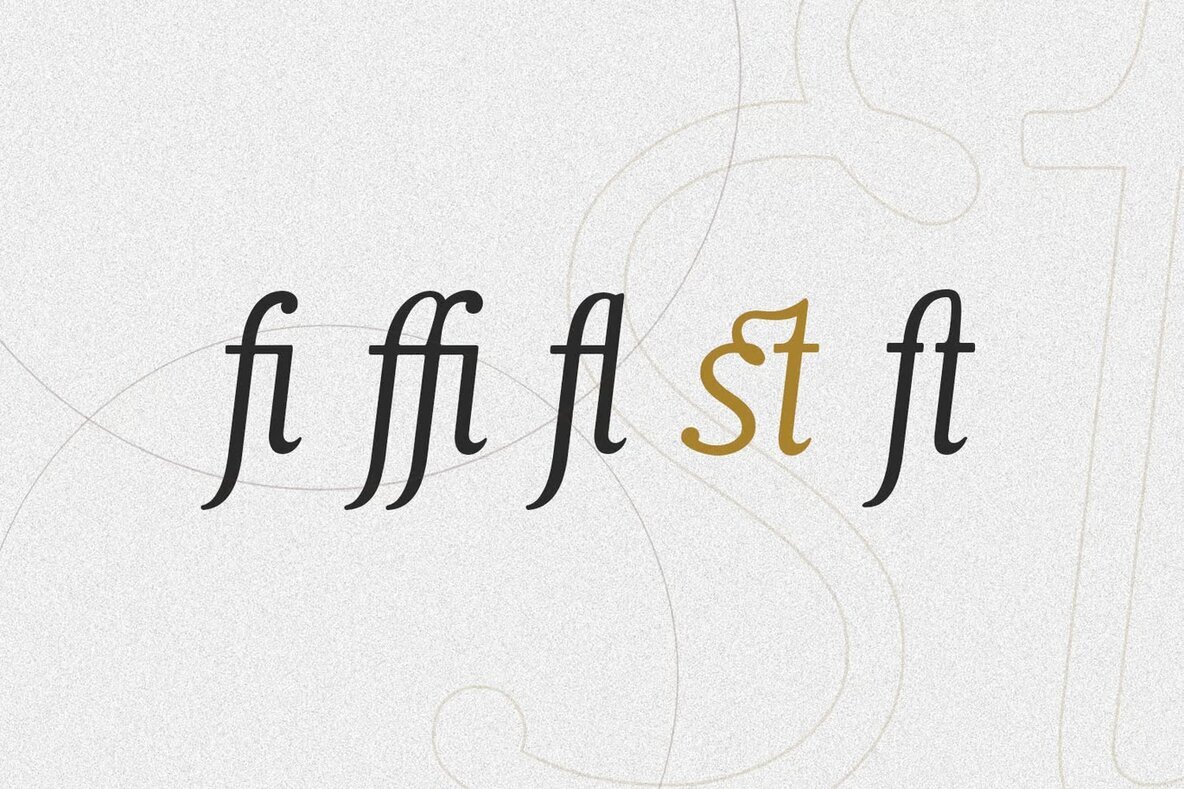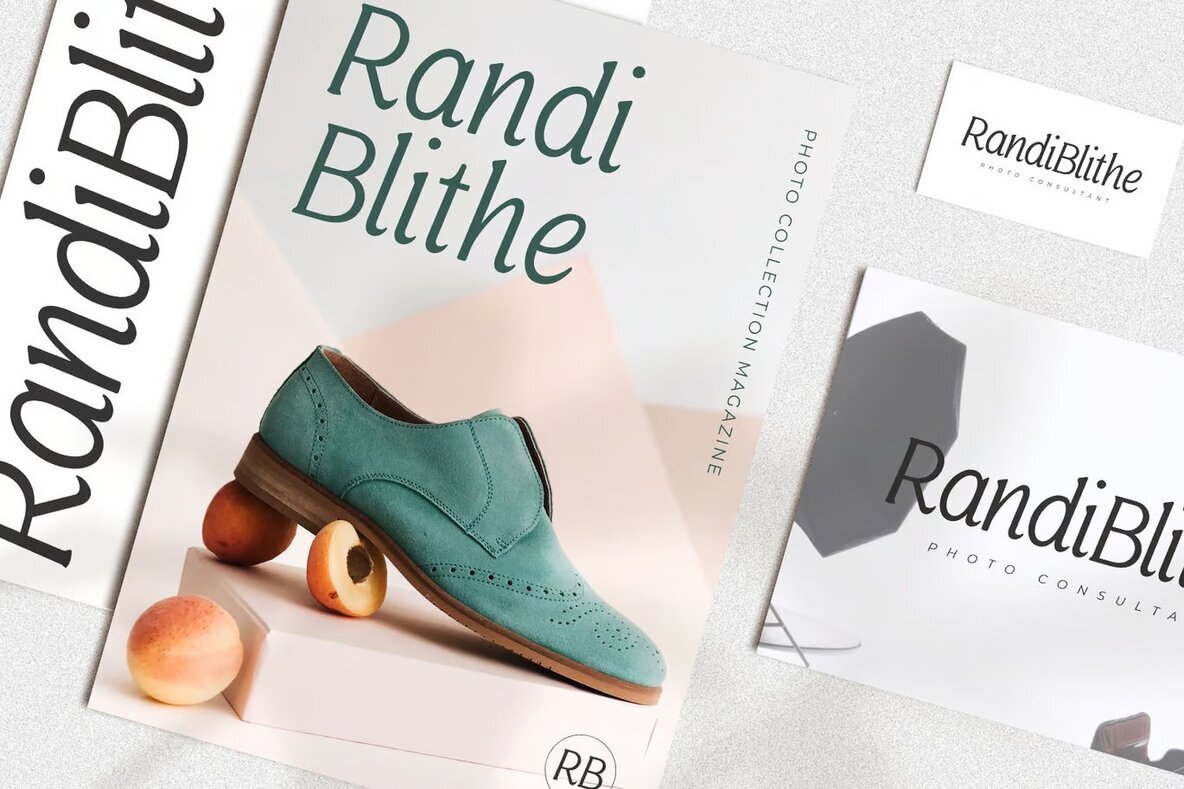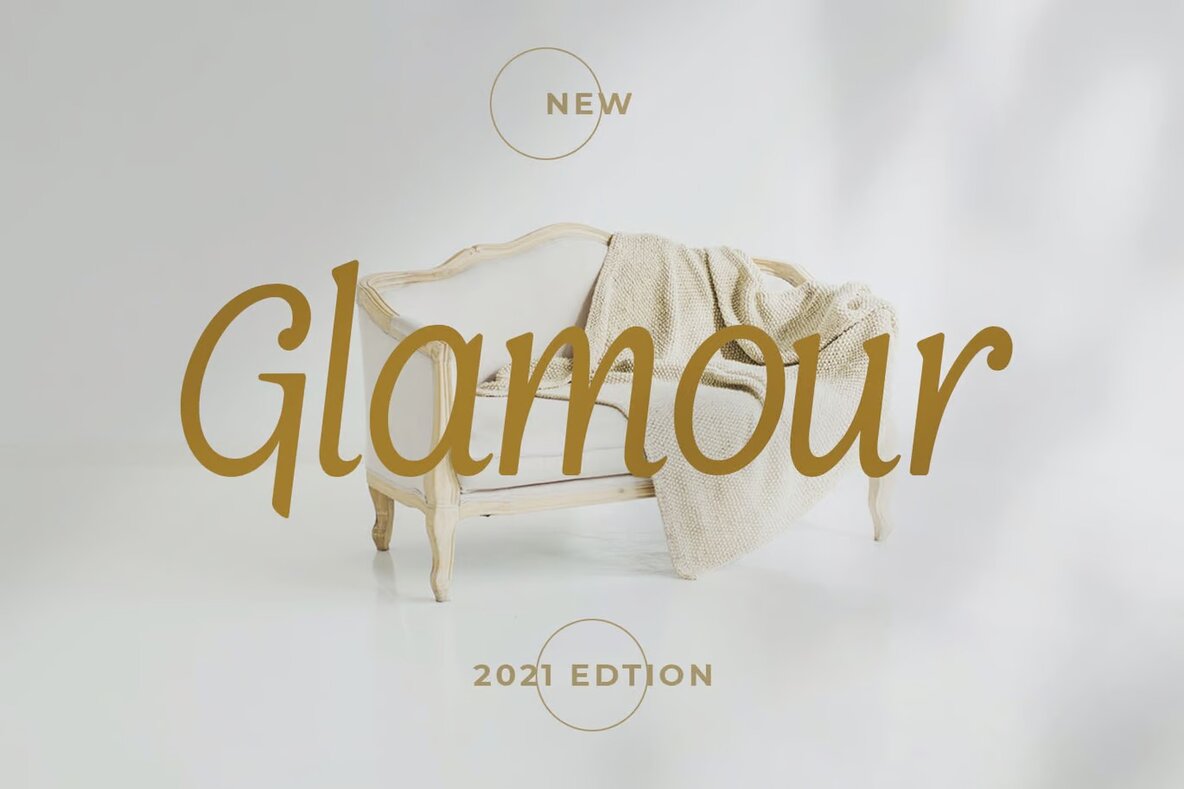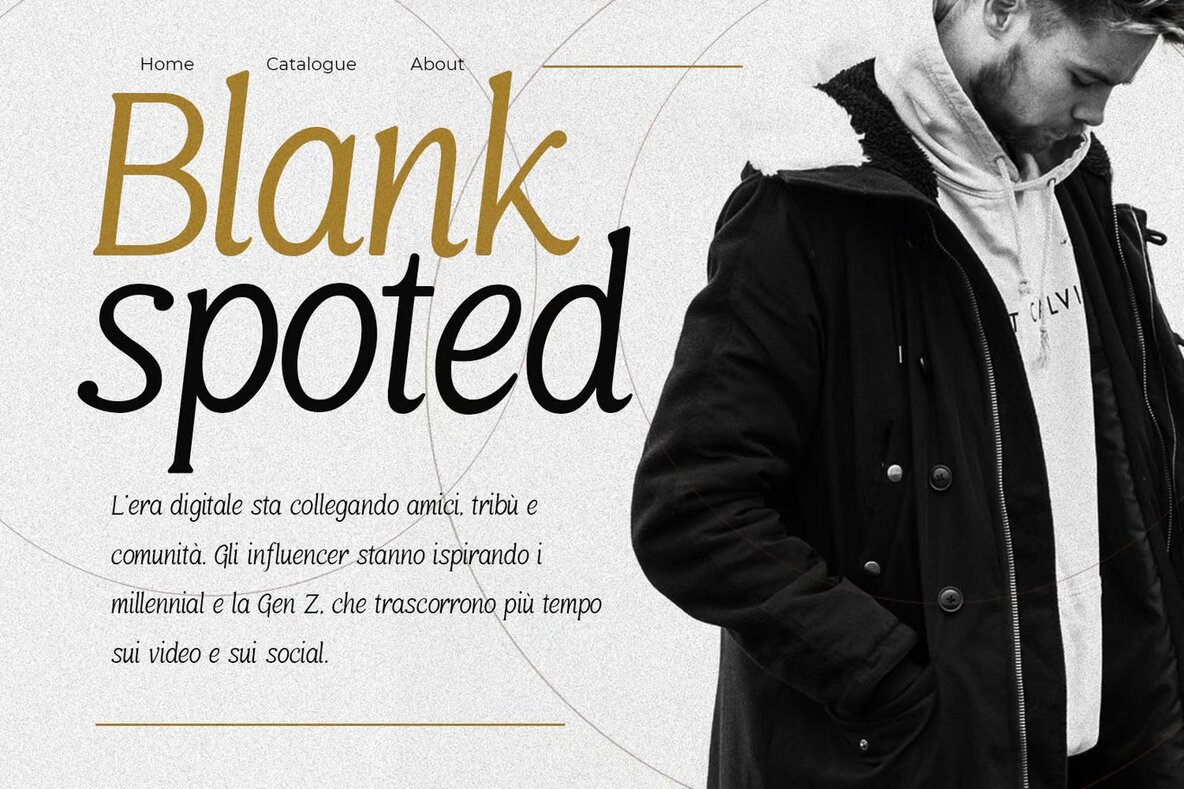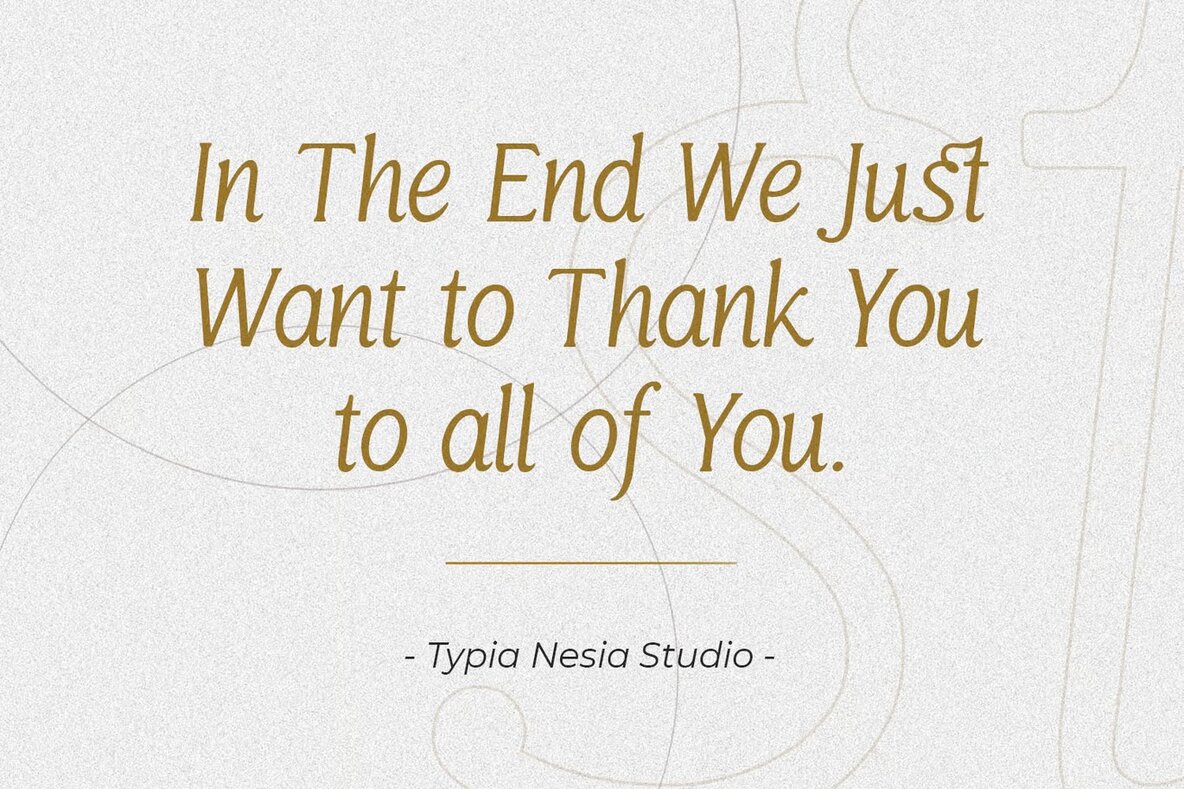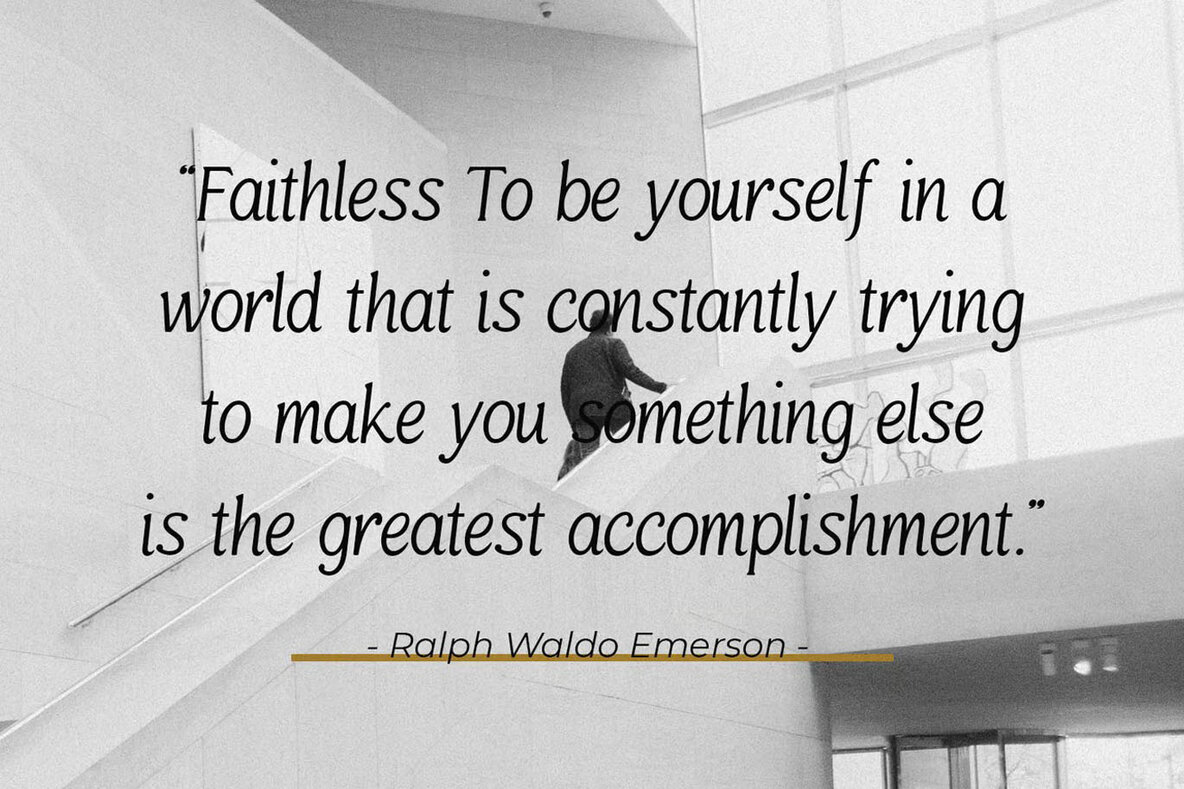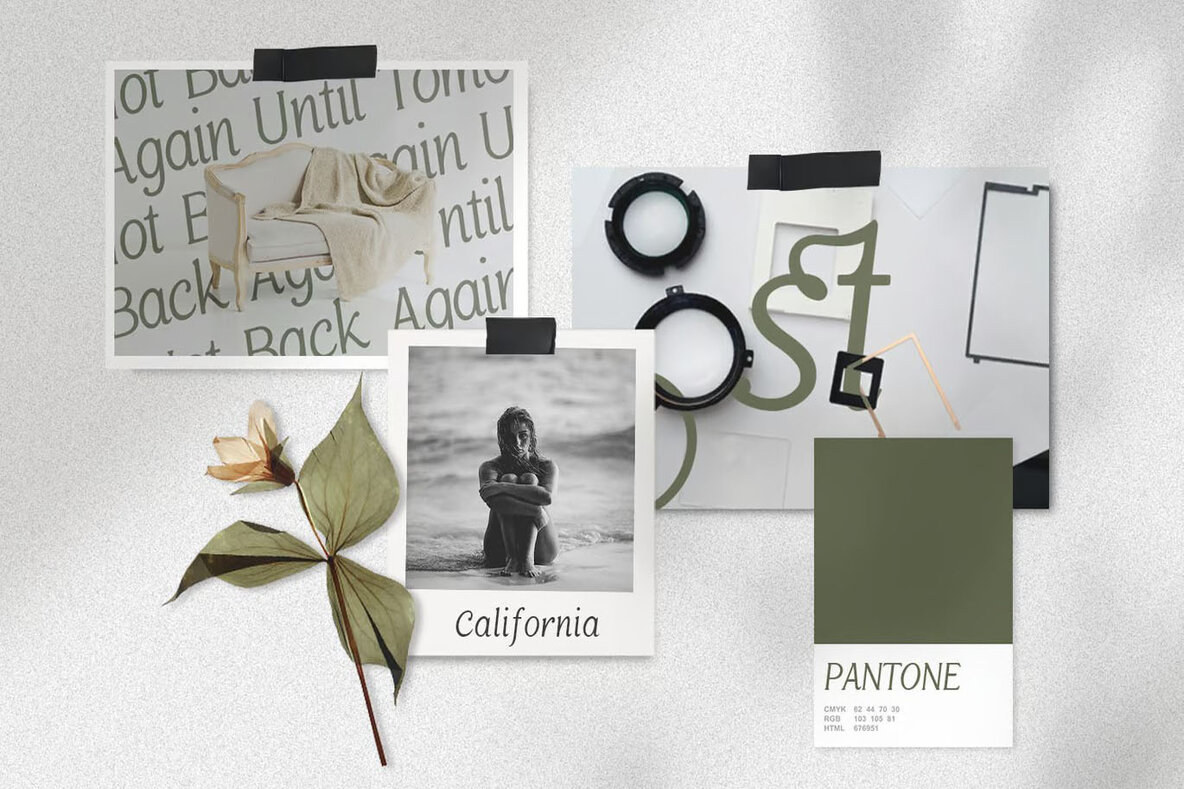
Quatest Font
Quatest Light
Quatest is an elegant, italic serif font that beautifully complements various design projects. Ideal for luxury logos, refined branding, and sophisticated editorial layouts, this font adds a touch of class to each creation. It's perfectly suited for women's magazines, cosmetic brand identities, and fashion promotions, offering a stylish yet timeless aesthetic. Whether you're working on art gallery branding or boutique marketing materials, Quatest delivers the classic elegance required for high-end designs.
Beyond branding, Quatest is also an excellent choice for stationery designs, blog layouts, and modern advertisements. It can enhance card invitations with its graceful curves and add charm to art quotes or home decor pieces. Useful for book covers and special events, Quatest offers versatility and sophistication, allowing designers to craft visually appealing experiences across diverse mediums.